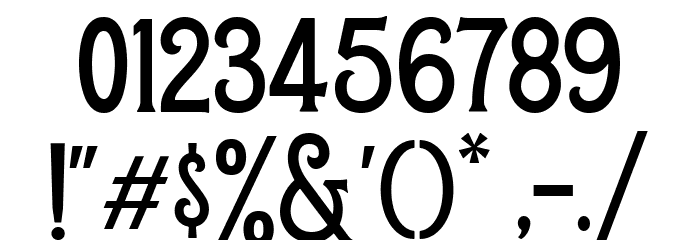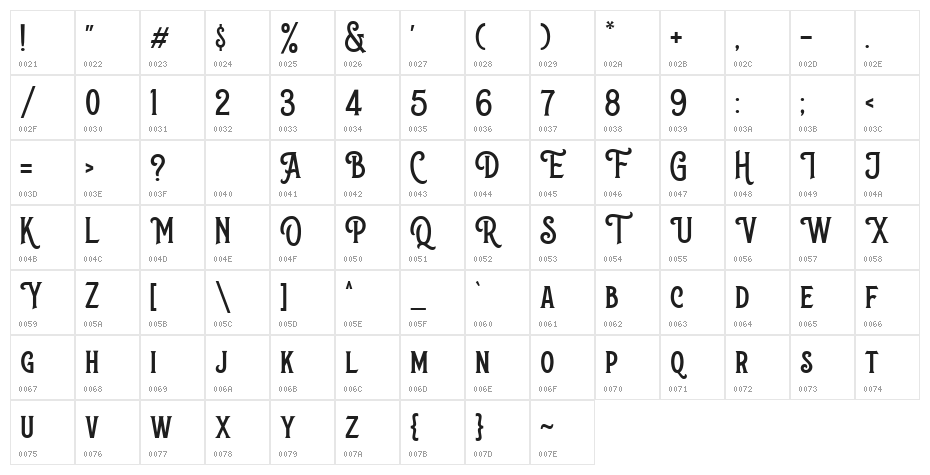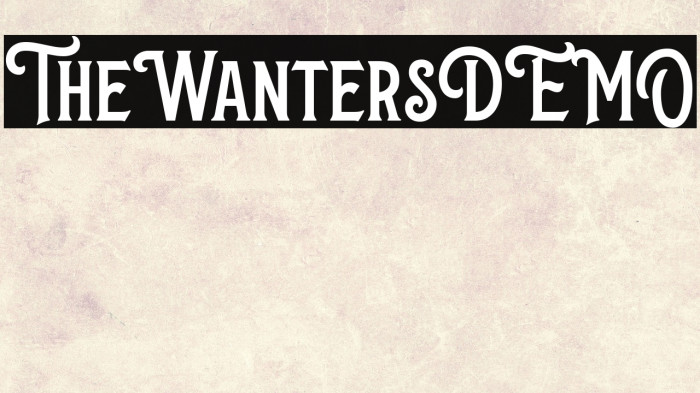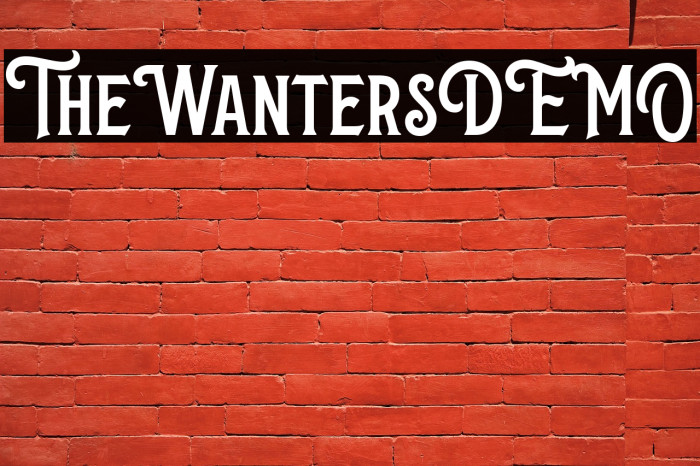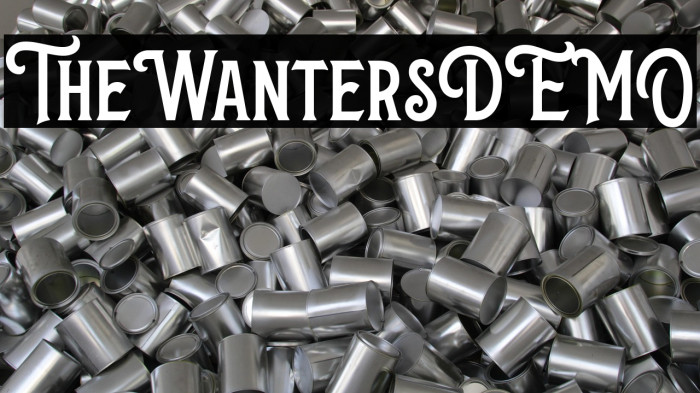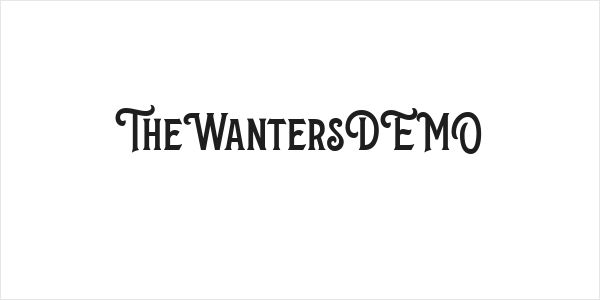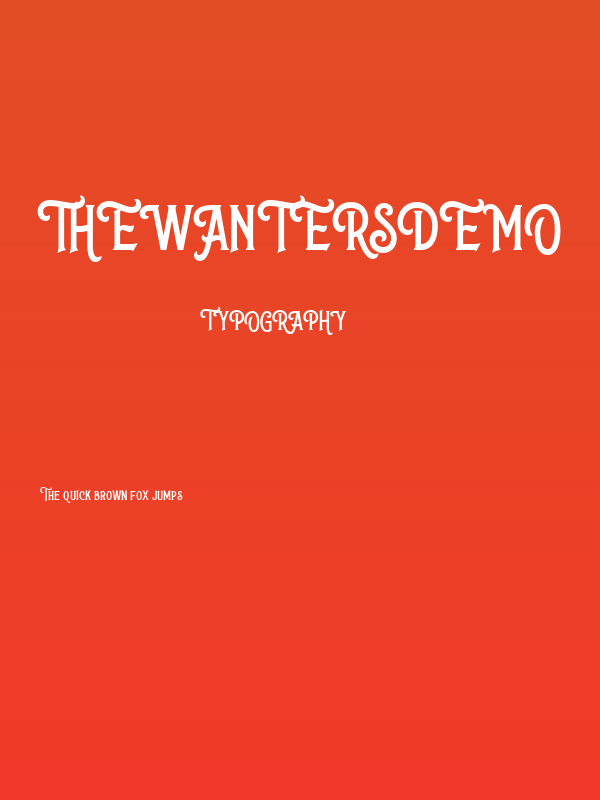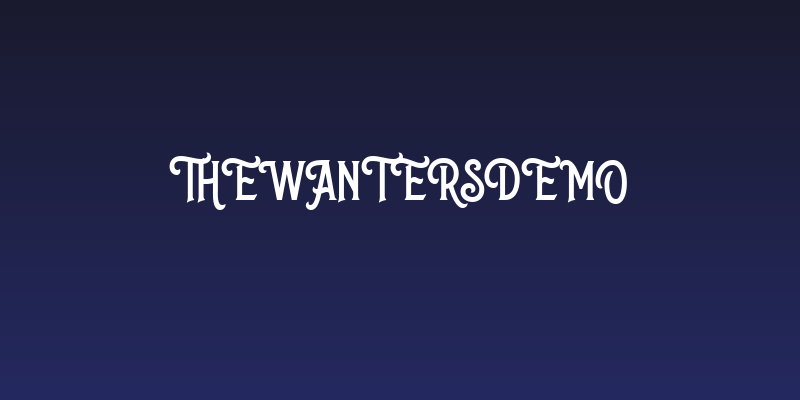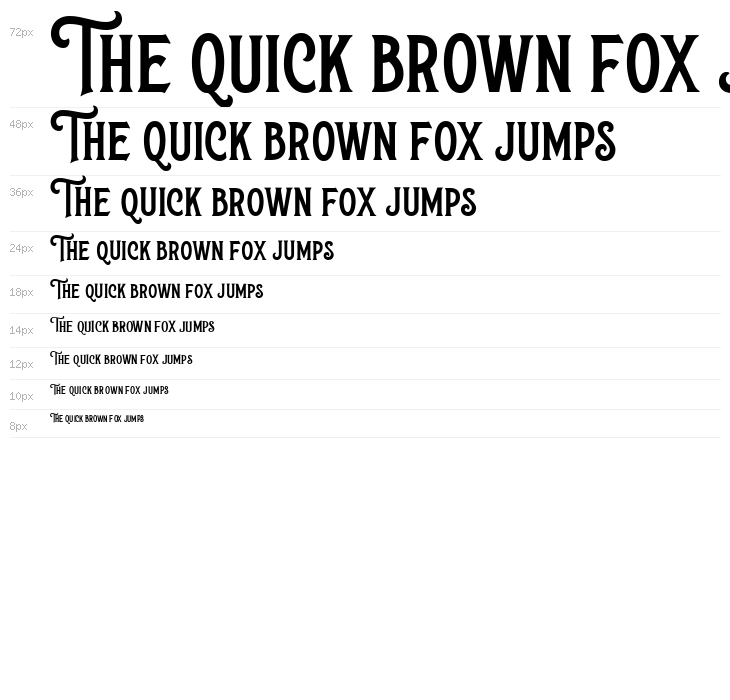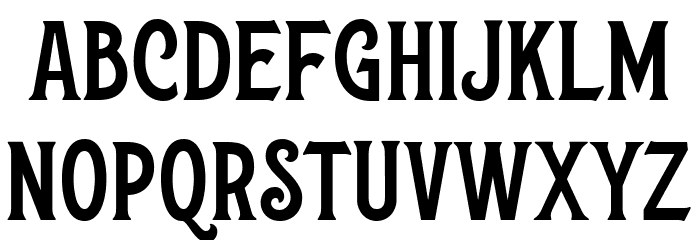
TheWantersDEMO Font
TheWantersDEMO Description
This font features a bold and decorative style with a unique flair in its uppercase letters, characterized by elegant swirls and curves that add a touch of sophistication. The lowercase letters maintain a consistent design, offering a harmonious blend of style and readability. The numerals are bold and clear, ensuring easy legibility. Special characters are designed with the same attention to detail, making them stand out while remaining cohesive with the overall font style. This font is perfect for projects that require a touch of elegance and creativity.
| Proposed Projects | Ideal for wedding invitations, branding, logos, and decorative headings. |